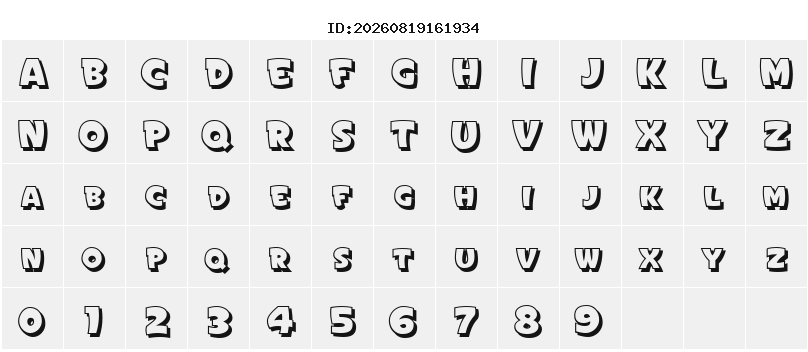
SignPainter'sGothicShadedSC JL Preview
• Font Name: SignPainter'sGothicShadedSC JL
• Font ID: SignPainter'sGothicShadedSC JL
• Full Font Name: SignPainter'sGothicShadedSC JL
• Version: version 1.0
• PostScript Name: SignPaintersGothicShadedSCJL
• Character Count: 93
• Designer: Jeffrey N. Levine
• Manufacturer: Jeff's Fonts & Dingbats
• Description: A drop shadow and small caps variation of "Sign Painter's Gothic JL".
SignPainter'sGothicShadedSC JL.ttf is a modern, elegant sans-serif font designed for ultimate readability and visual harmony. Perfect for branding, headlines, web design, and print materials.